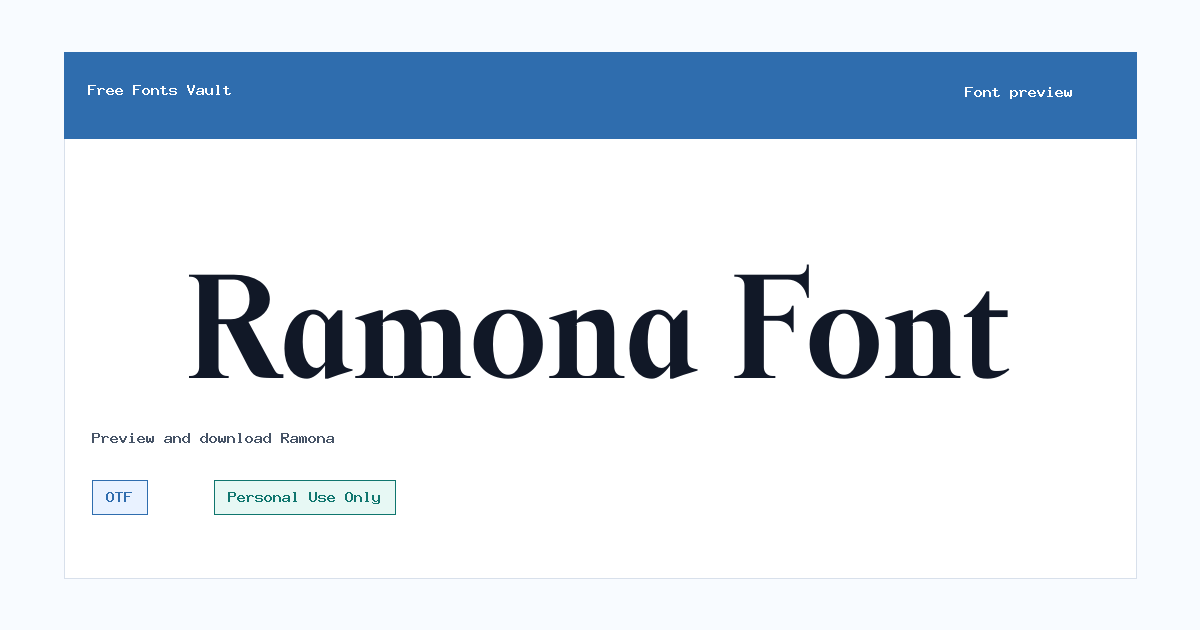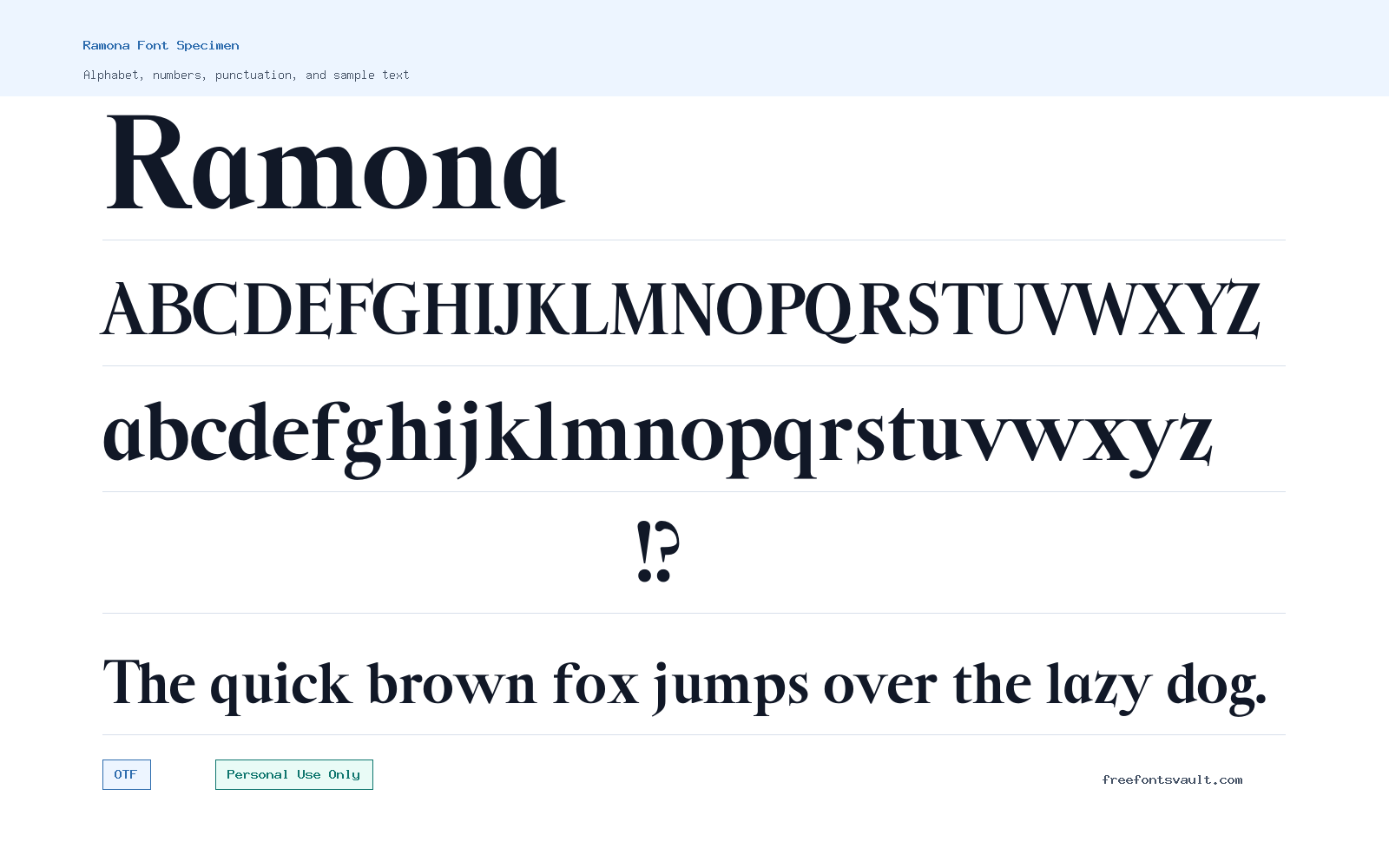
Ramona
Ramona font.
Ramona is a serif-style font for visitors who want a polished look in short text, display previews, and personal design experiments. Use the preview tool to test your own wording before downloading.
About Ramona Font
Ramona works best when it has room to show its letter shapes. Because the downloadable file is an OTF regular style, it is a practical choice for testing headlines, name designs, social graphics, invitation drafts, quote layouts, and other short pieces of text. The style is better suited to display use than long reading blocks, so try it at larger sizes first and check how the spacing feels with your exact words.
For cleaner results, keep Ramona away from crowded layouts. Pair it with a simple sans serif for body copy, labels, or supporting details, and let Ramona handle the main title or accent line. If you are designing a logo concept, product mockup, or client-facing artwork, review the license before using it outside personal drafts. Test uppercase, lowercase, numbers, and punctuation in the preview so you can catch spacing or character limits before installing it.
- Serif-style display character suited to titles, names, and short decorative text
- Single regular weight, useful when you want one clear style rather than a large font family
- Best checked at medium to large sizes where the letter details are easier to see
- Personal invitation drafts and event title layouts
- Quote graphics, name cards, and social media text images
- Branding mockups or logo concepts for private testing
- Short headings paired with a simple body-text font
What is Ramona best used for?
Ramona is best for short display text such as titles, names, invitations, quote graphics, and personal mockups. It is not the safest choice for long paragraphs.